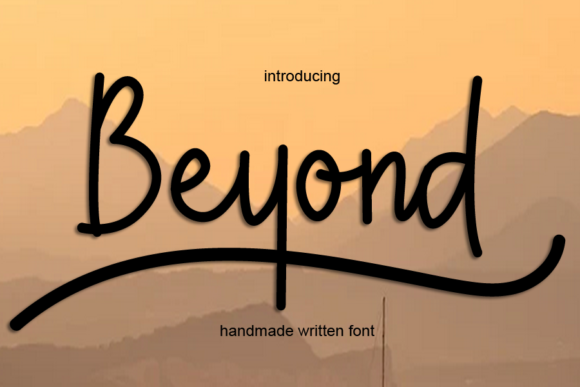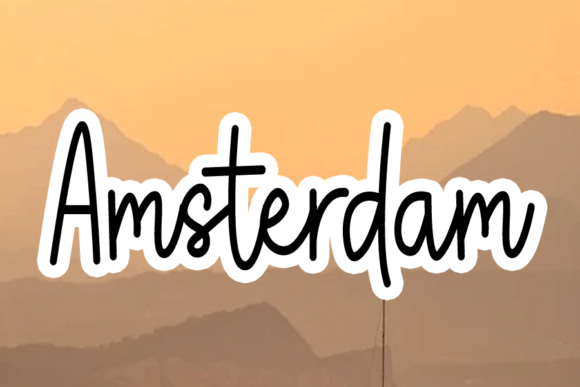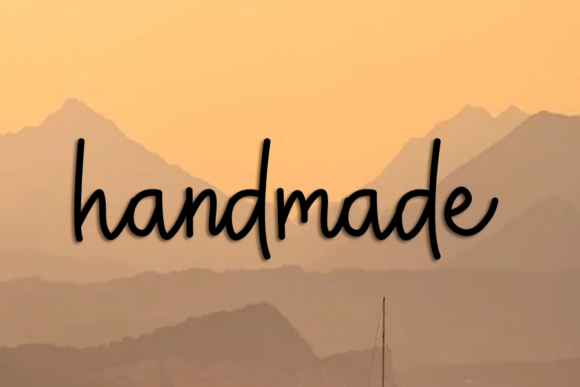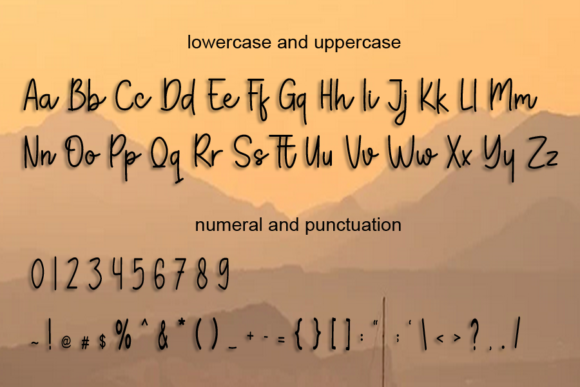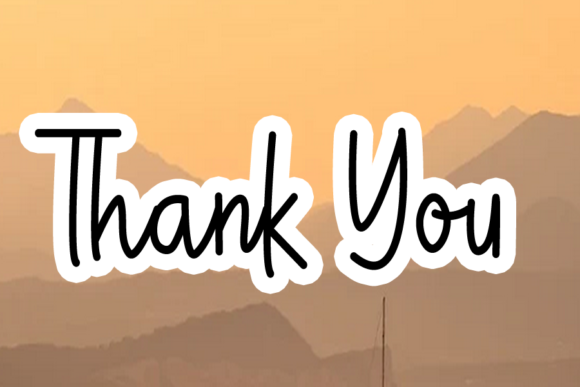
Beyond Font
About Beyond Font
Beyond is a gorgeous handwritten font with a classic calligraphy style. The smooth font works great on greeting cards, wedding invites, birthday cards, and much more. Add this lovely font to your creations and take your designs to the next level!